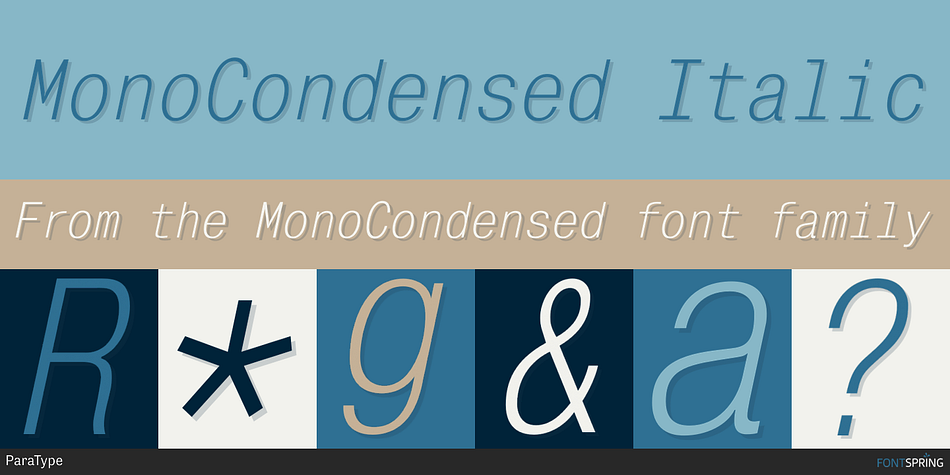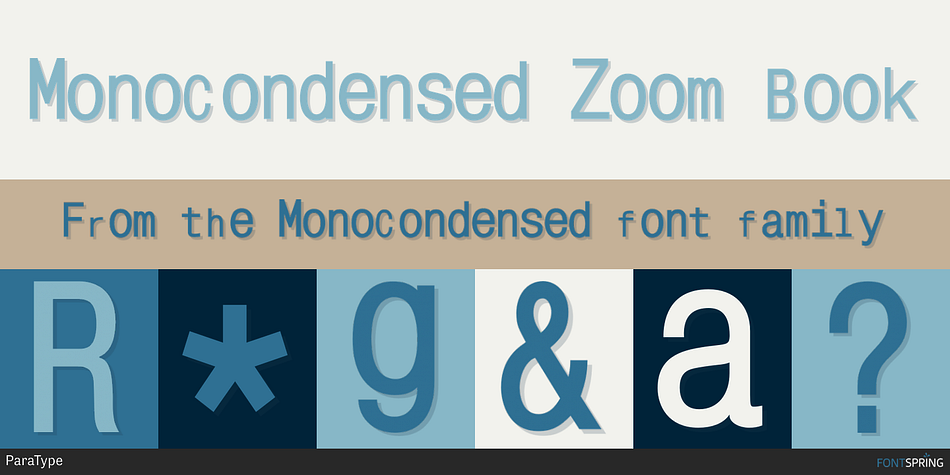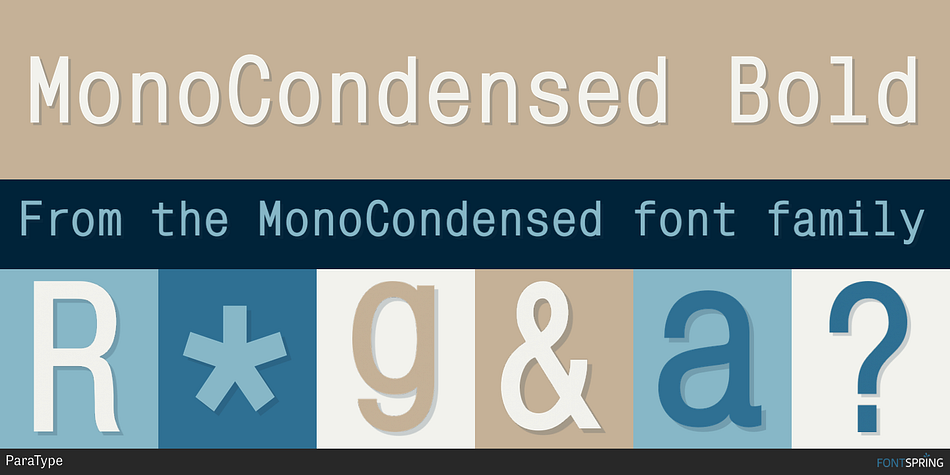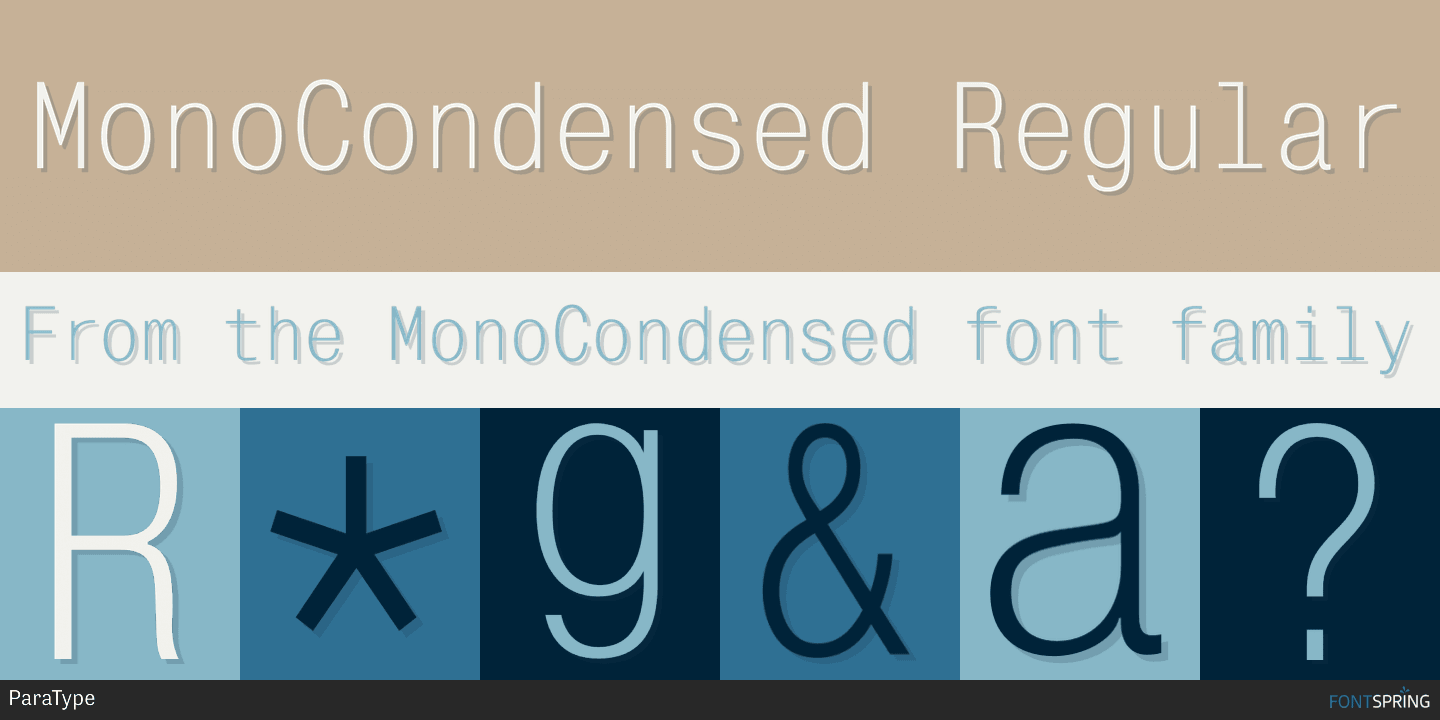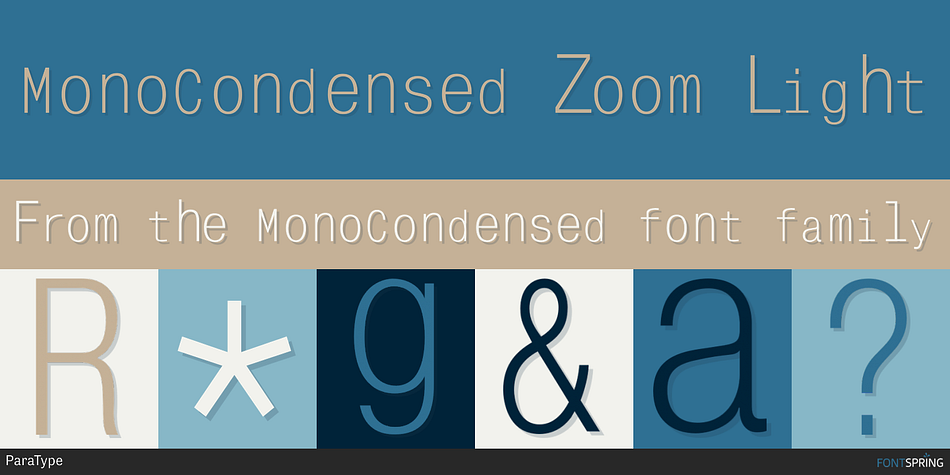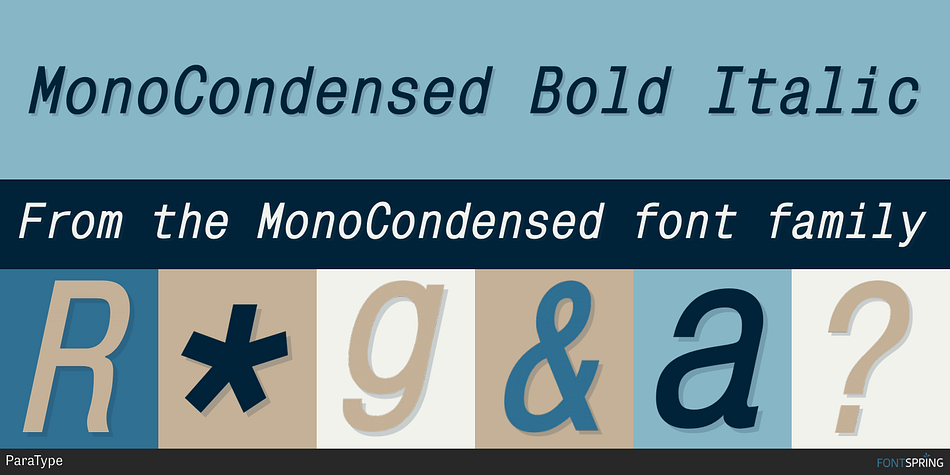
Designed by Alexander Tarbeev, MonoCondensed is a sans serif and typewriter font family. This typeface has six styles and was published by ParaType.
The typeface was designed at ParaType (ParaGraph) in 1990 by Alexander Tarbeev based on Pragmatica typeface, 1989 by Vladimir Yefimov. A monospaced condensed sans serif.